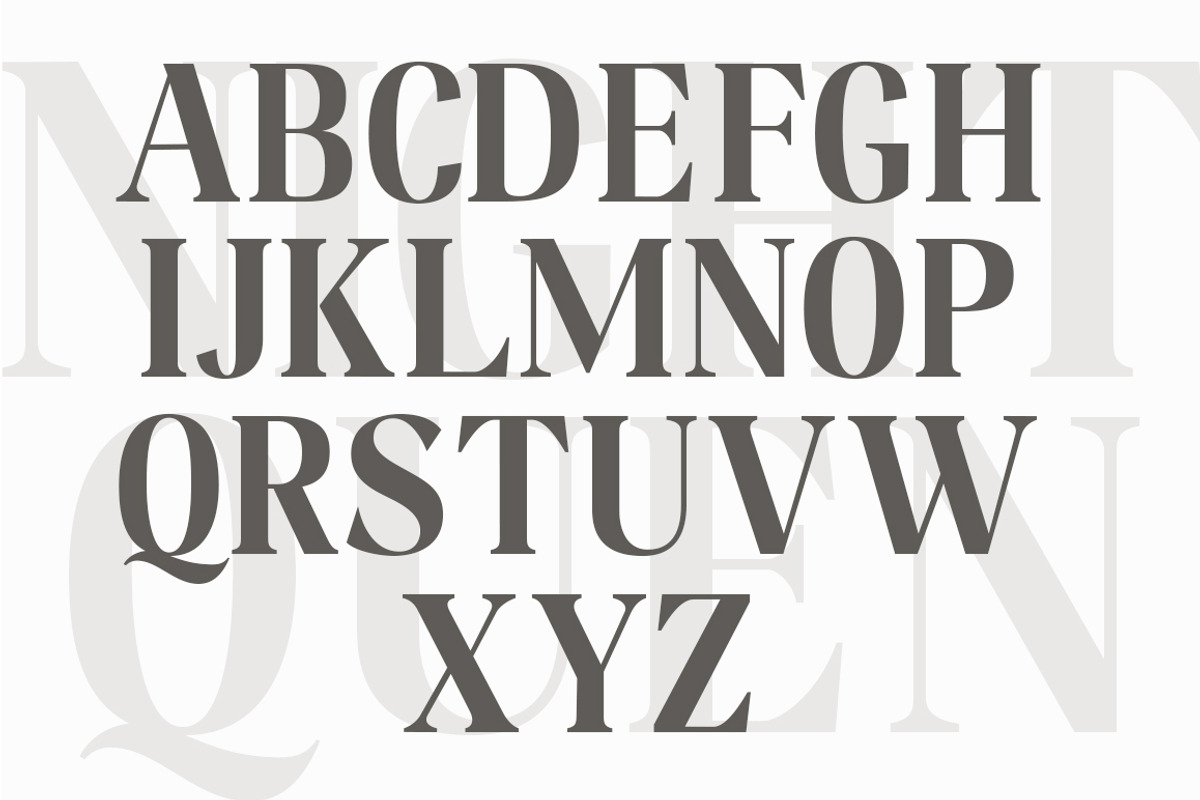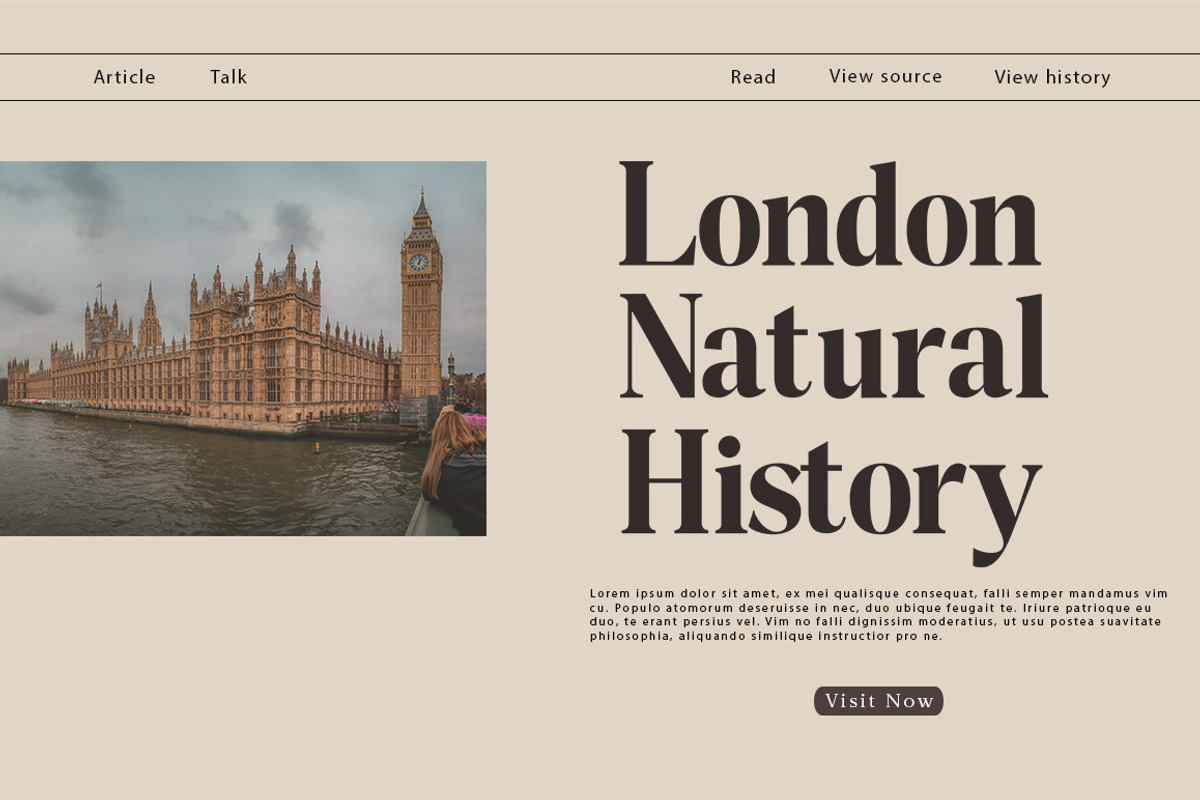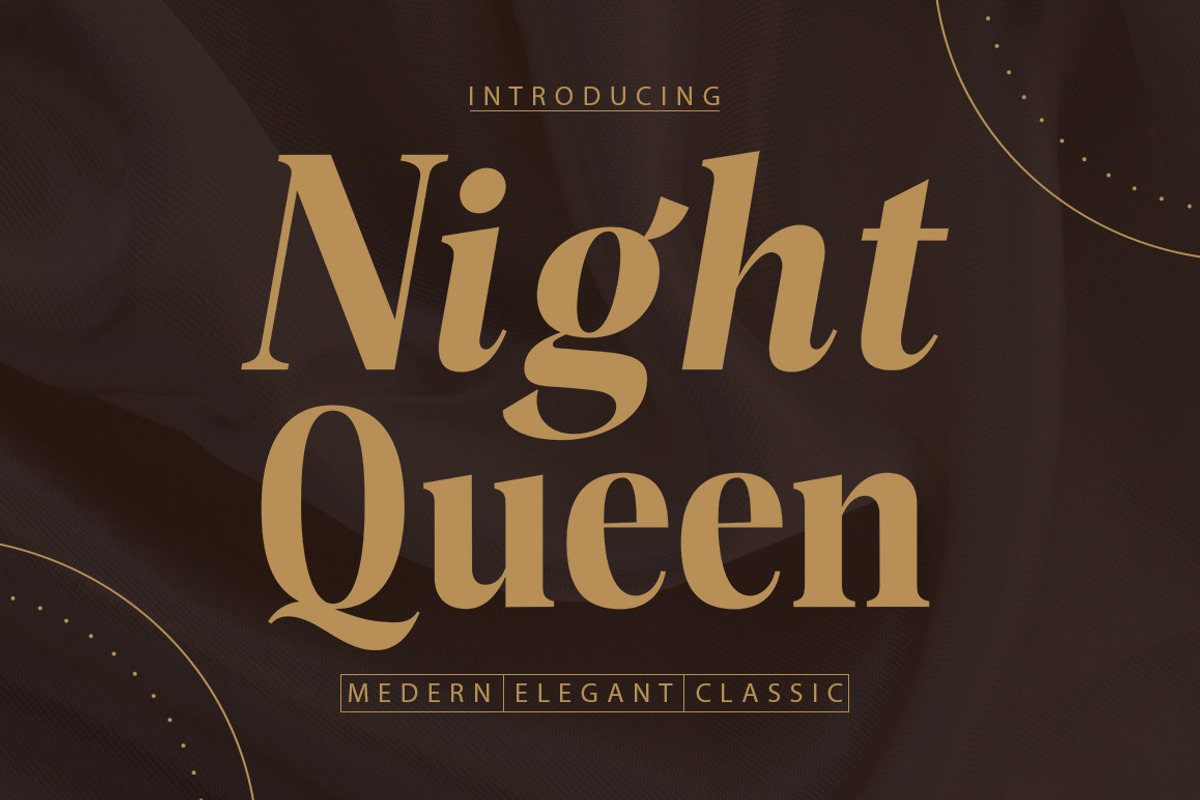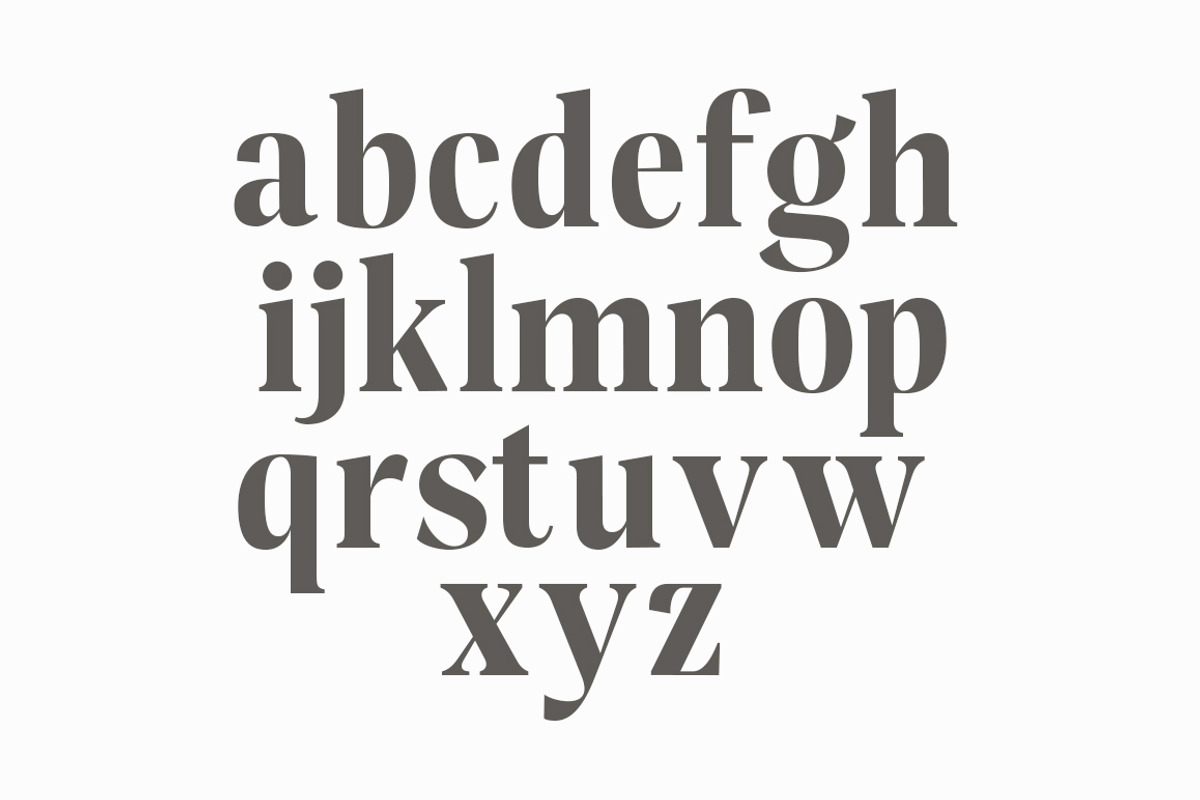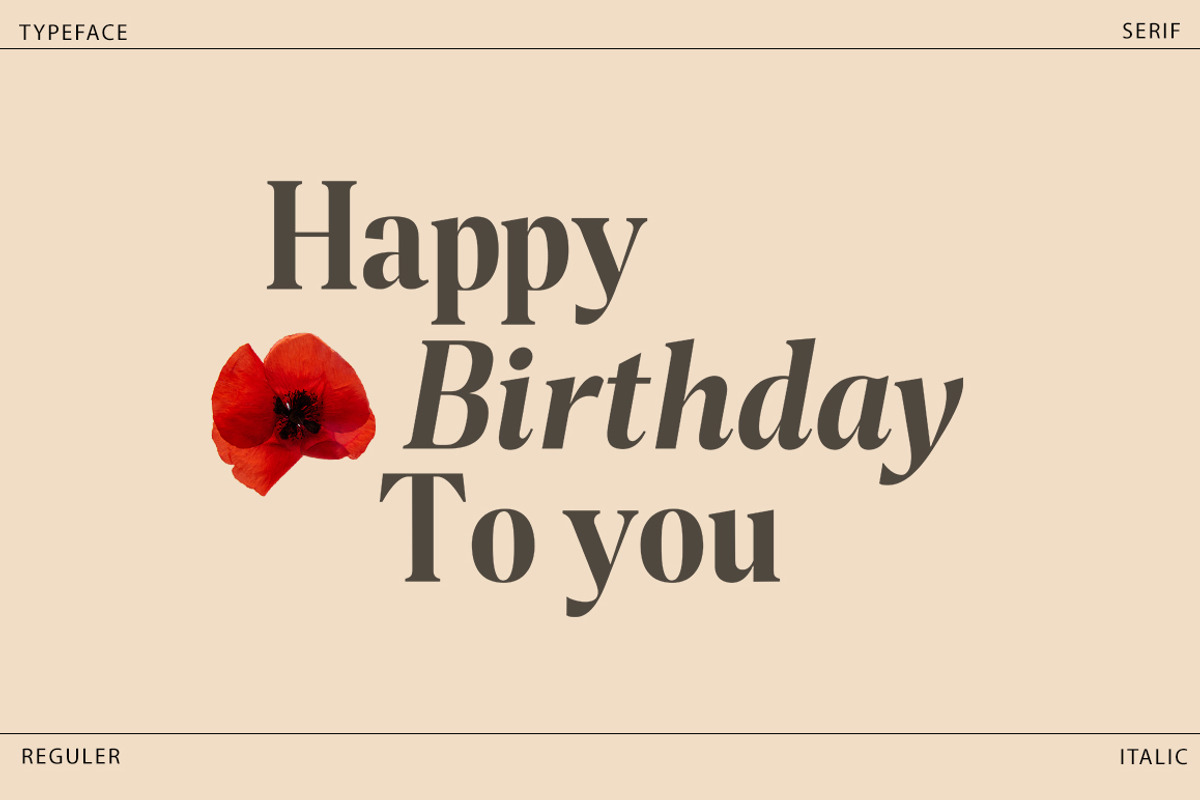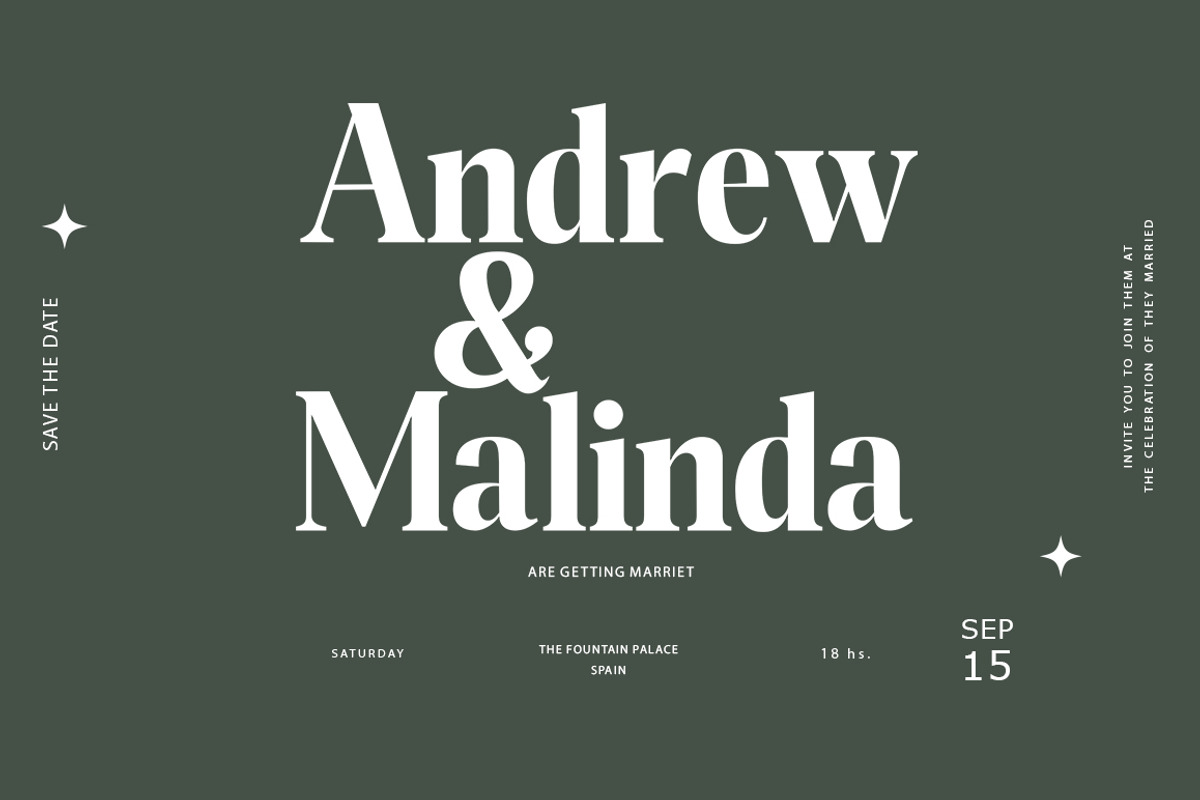
Night Queen
Night Queen is also equipped with a modern Italic font style which can be used for printing companies and home companies, Night Queen Serif.is a Serif Display Font with a modern, classy, fun, unique and versatile style. It looks amazing at display size and is easy to read in text size. This font also.